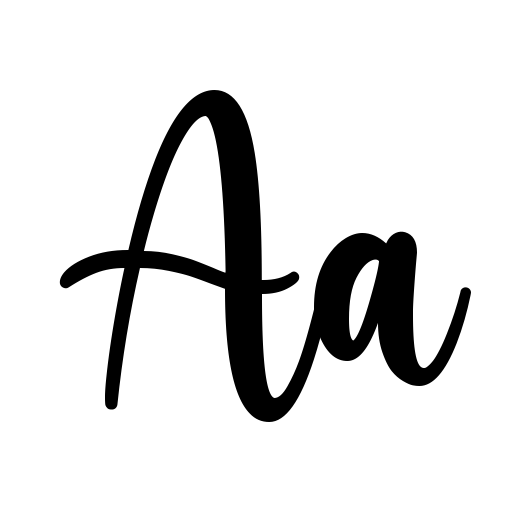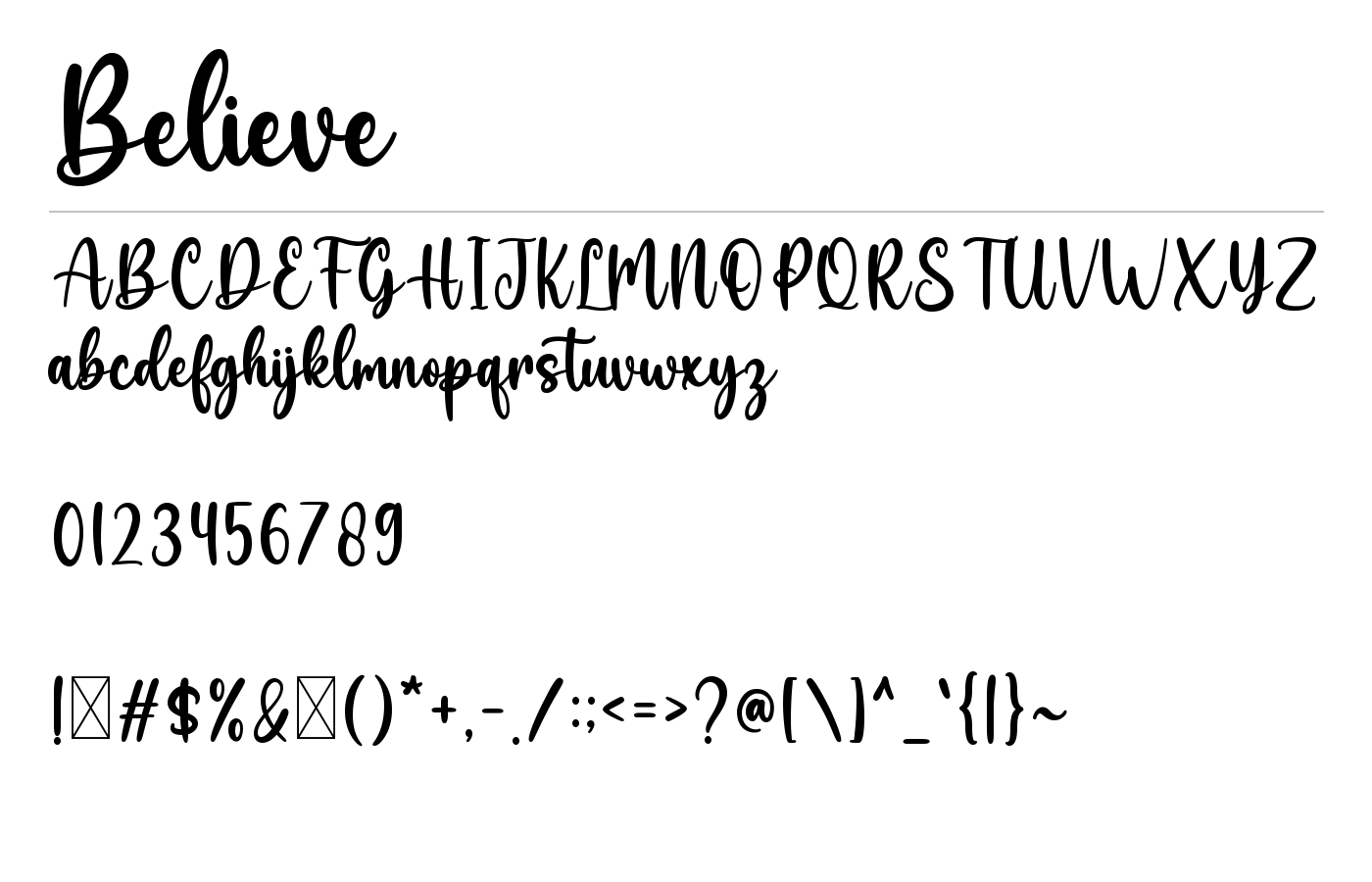
Believe Font is a charming and lively script typeface with a friendly, hand-drawn feel. Its flowing strokes and moderate contrast create an inviting and playful personality, making it perfect for creative branding, invitations, and casual headlines where warmth and approachability are key. This font shines in designs seeking a personal touch while maintaining legibility and style.
Believe Font
About Believe Font